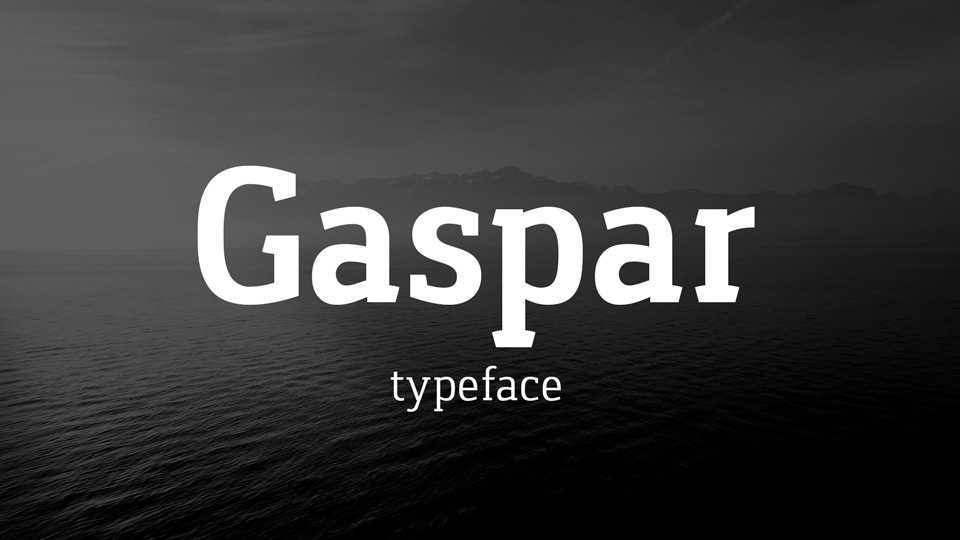
Download Gaspar font family, a contemporary slab serif typeface in Regular and Bold weights and matched Italics. Gaspar font family works well for texts and titles, suits for various graphic design projects.
Designer: Carlos Alonso